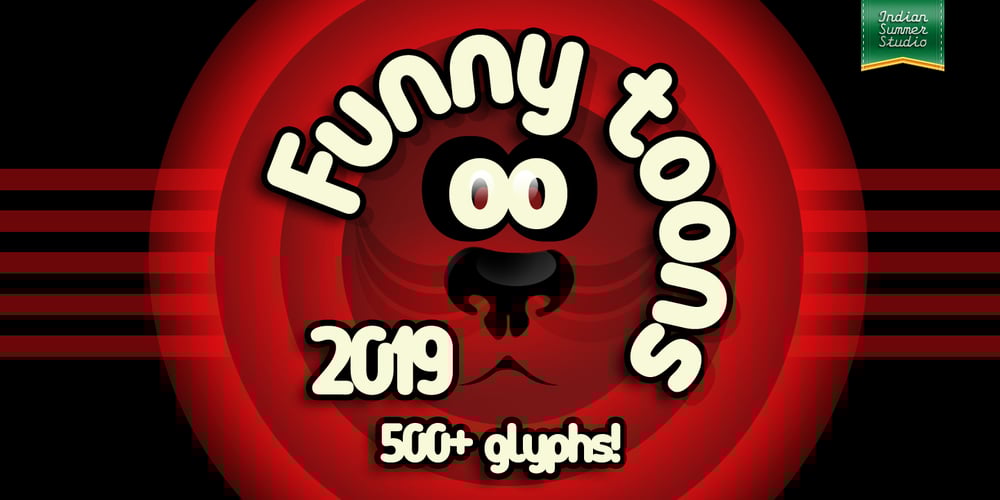
Funny Toons Font Family was designed by Ekke Wolf, Alexander Bobrov and published by Indian Summer Studio. Funny Toons contains 1 styles and family package options. Soft, funny round cartoon display font containing 500+ glyphs, Diacritics, Ligatures, Fractions in Latin, Cyrillic and Greek. Made entirely after Ekke Wolf’s Greek ‘rho’ letter’s idea in Runde Wien: — Damn, it’s funnier than every [cartoon] mouse, duck and everything. — The source letter for a whole special typeface — with own funny happy mood. — As I see, it’s the decent respected well-mannered sans. And this ‘rho’ is the source for the completely different Funny Toons display type. Just found it around this brilliant oval.